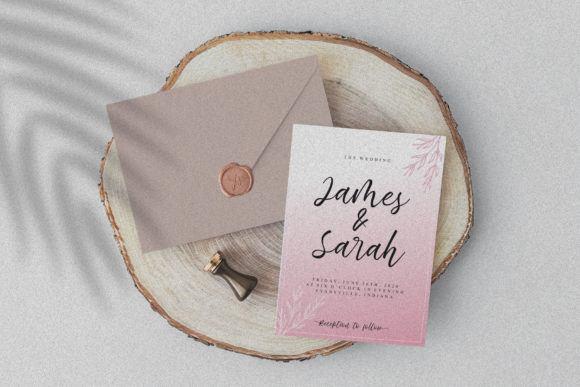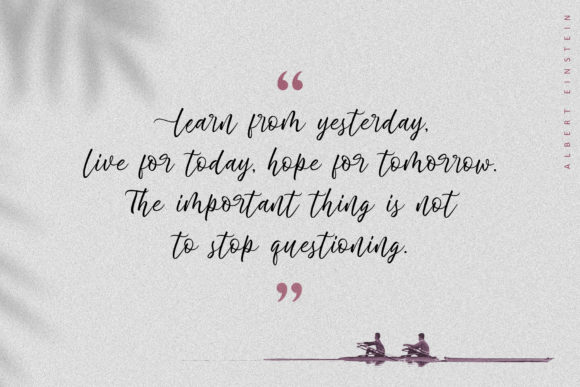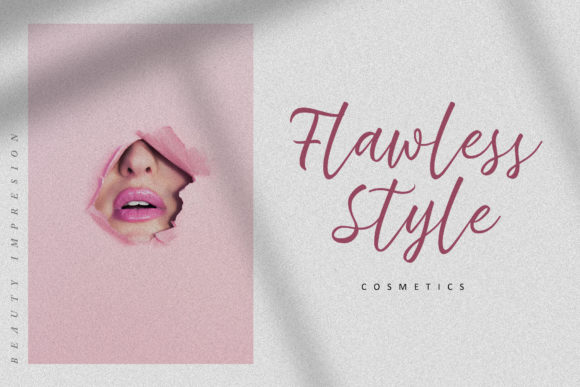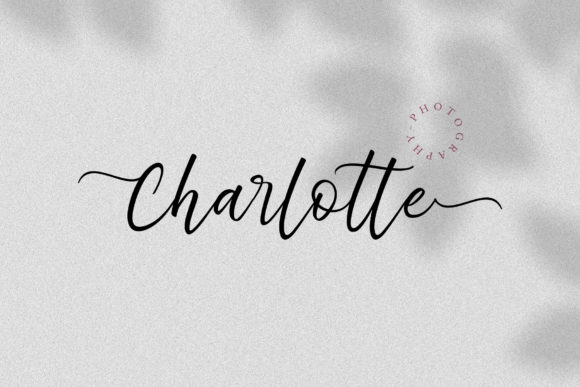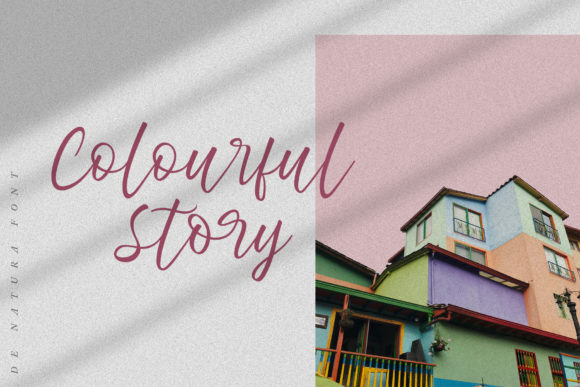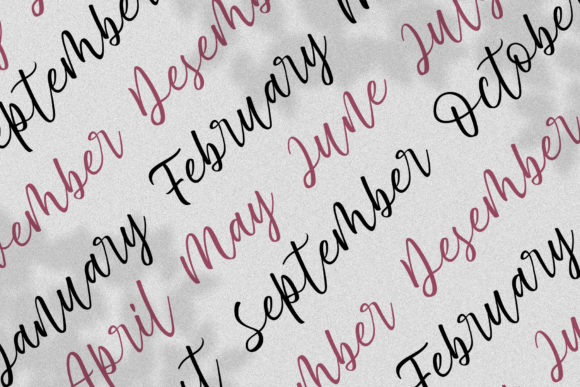
Discover the Elegance of De Natura Font: A Timeless Script Font for Your Designs
Are you a designer or crafter looking for a font that exudes elegance and sophistication? Look no further than De Natura Font, a magical script font that combines timeless elegance with authentic calligraphy. In this article, we’ll explore the features and benefits of De Natura Font, and how it can elevate your designs to the next level.
The Inspiration Behind De Natura Font
De Natura Font is a carefully crafted font that draws inspiration from the world of calligraphy and classic typography. Its creator aimed to design a font that would evoke a sense of nostalgia and refinement, while still being friendly and approachable. The result is a font that is both elegant and versatile, making it perfect for a wide range of design applications.
Key Features of De Natura Font
So, what makes De Natura Font so special? Here are some of its key features:
- Timeless Elegance: De Natura Font boasts a classic style that is reminiscent of traditional calligraphy. Its elegant lines and curves make it perfect for designs that require a touch of sophistication.
- Authentic Calligraphy: Unlike some script fonts that can look artificial or forced, De Natura Font has a genuine calligraphic feel that is sure to impress.
- Friendly Feel: Despite its elegant appearance, De Natura Font still manages to feel friendly and approachable. This makes it perfect for designs that require a personal touch.
- Versatility: De Natura Font is incredibly versatile, making it suitable for a wide range of design applications, from logos and branding to invitations and packaging.
Uses for De Natura Font
So, how can you use De Natura Font in your designs? Here are some ideas to get you started:
- Logos and Branding: De Natura Font is perfect for creating elegant and sophisticated logos that will help your brand stand out.
- Invitations and Stationery: Add a touch of elegance to your invitations, wedding stationery, and other paper goods with De Natura Font.
- Packaging Design: Use De Natura Font to create beautiful and eye-catching packaging that will make your products stand out on store shelves.
- Digital Designs: De Natura Font is also perfect for digital designs, such as social media graphics, website headers, and more.
Tips for Using De Natura Font
Here are some tips for getting the most out of De Natura Font:
- Use it sparingly: De Natura Font is a statement font, so use it sparingly to avoid overwhelming your design.
- Experiment with colors: De Natura Font looks great in a variety of colors, so don’t be afraid to experiment and find the perfect hue for your design.
- Pair it with other fonts: De Natura Font pairs well with a range of other fonts, so try combining it with a sans-serif font for a striking contrast.
| Font Name | De Natura Font |
| Author | Nyalaapi |
In conclusion, De Natura Font is a magical script font that is sure to elevate your designs to the next level. Its timeless elegance, authentic calligraphy, and friendly feel make it perfect for a wide range of design applications. Whether you’re a designer, crafter, or DIY enthusiast, De Natura Font is a must-have font that will help you create original and outstanding designs.